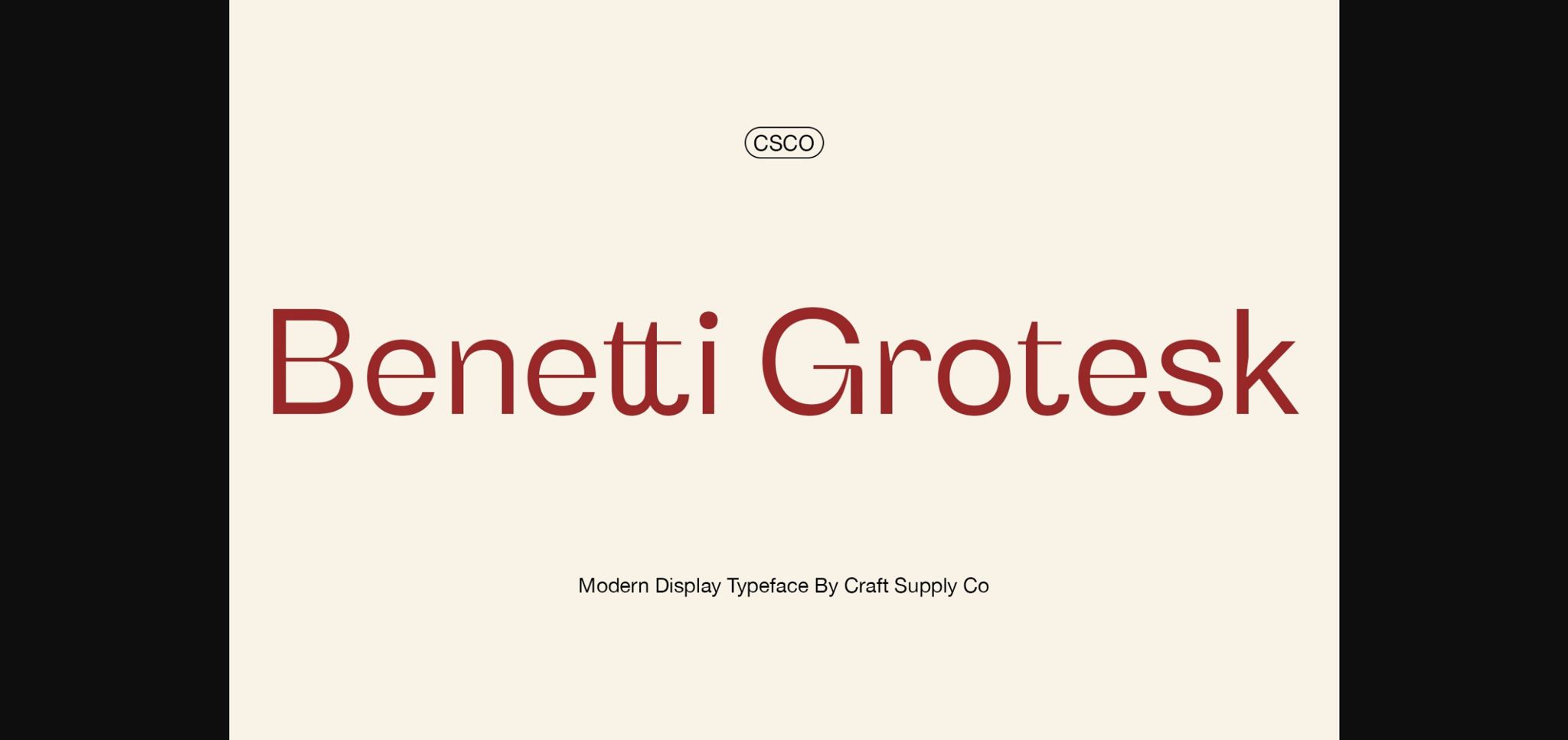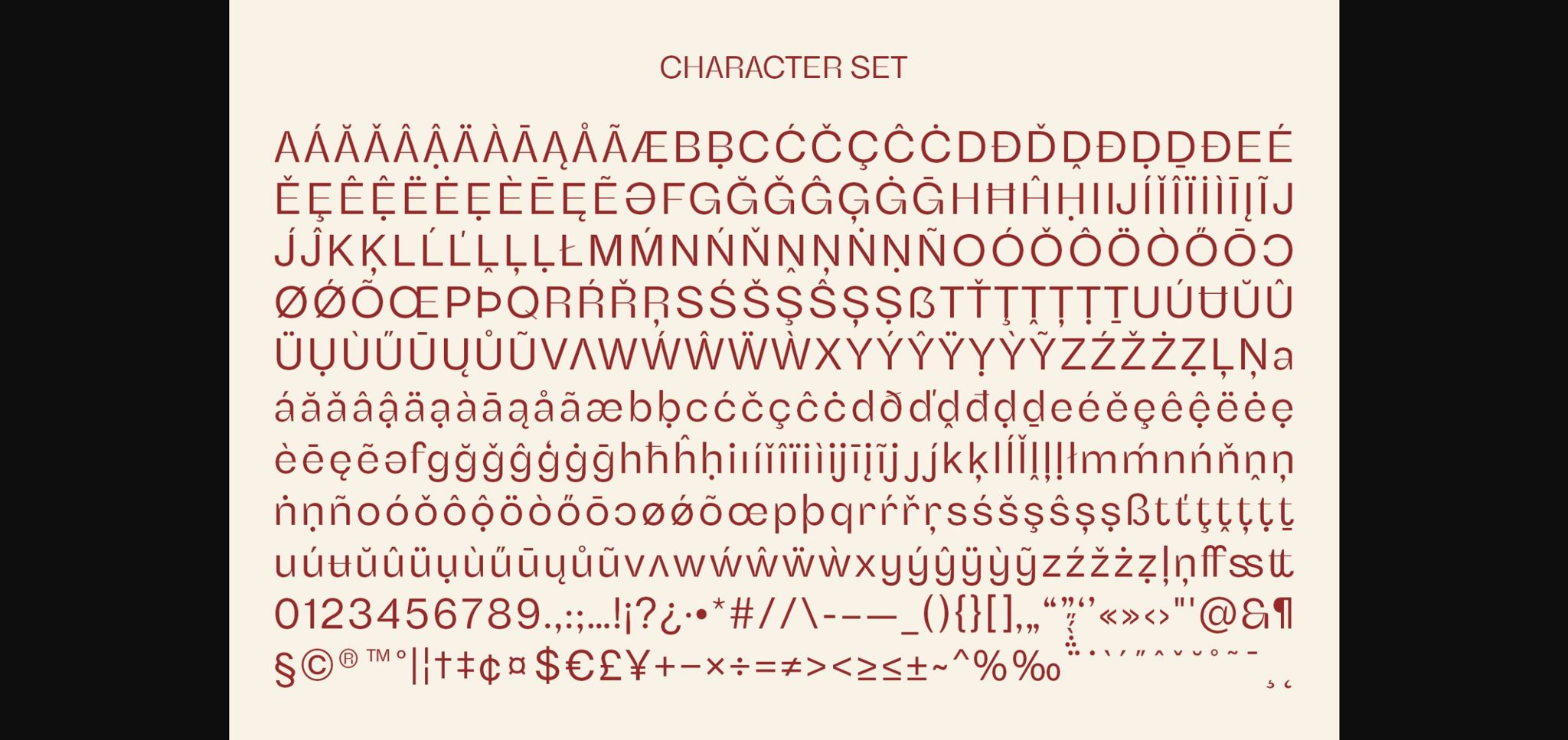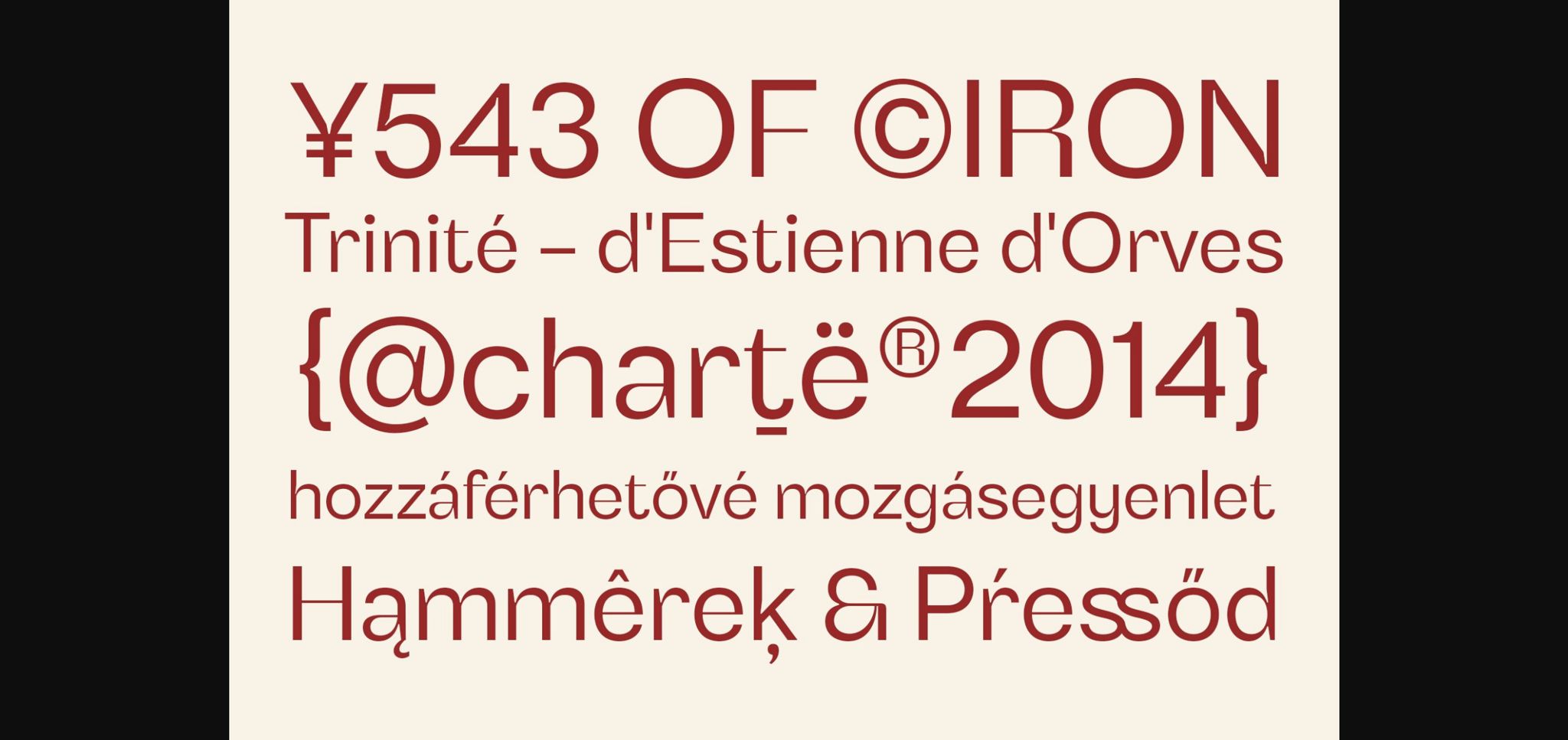
About Benetti Grotesk Font
Introducing Benetti Grotesk
Benetti Grotesk is a modern sans serif inspired by grotesque typeface constructions with a few contemporary senses in the details to make it look more attractive. Just use your imagination and your project will become more alive with this typeface.
Do you want to make a greeting card or a package design, or even a brand identity, craft design, any DIY project, book title, poster, pop vintage design, retro design, or more? Feel free to play with this typeface!
Benetti Grotesk is a modern sans serif inspired by grotesque typeface constructions with a few contemporary senses in the details to make it look more attractive. Just use your imagination and your project will become more alive with this typeface.
Do you want to make a greeting card or a package design, or even a brand identity, craft design, any DIY project, book title, poster, pop vintage design, retro design, or more? Feel free to play with this typeface!